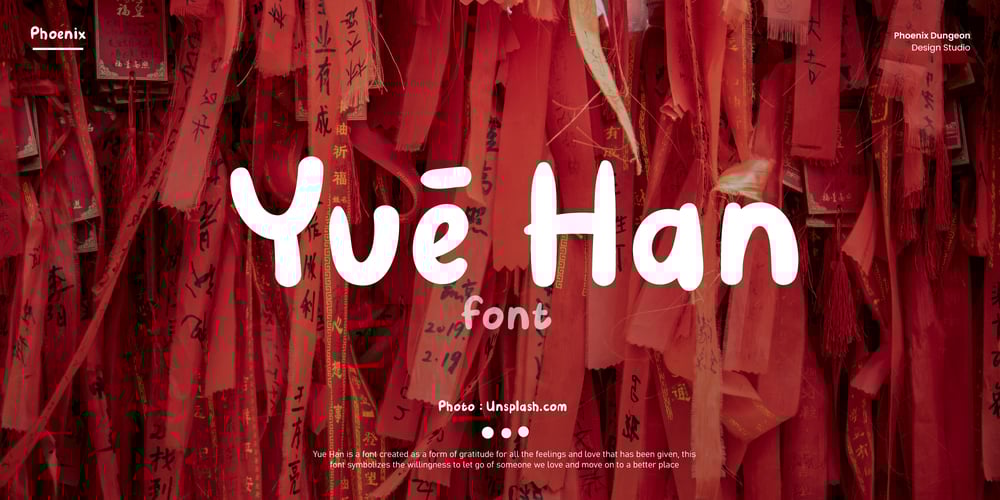
Yue Han
Yue Han font
Yue Han Font Family was designed by Alif Naufal Muzakki and published by Phoenix Group. Yue Han contains 1 styles and family package options. Yue Han is a font created as a form of gratitude for all the feelings and love that has been given, this font symbolizes the willingness to let go of someone we love and move on to a better place.